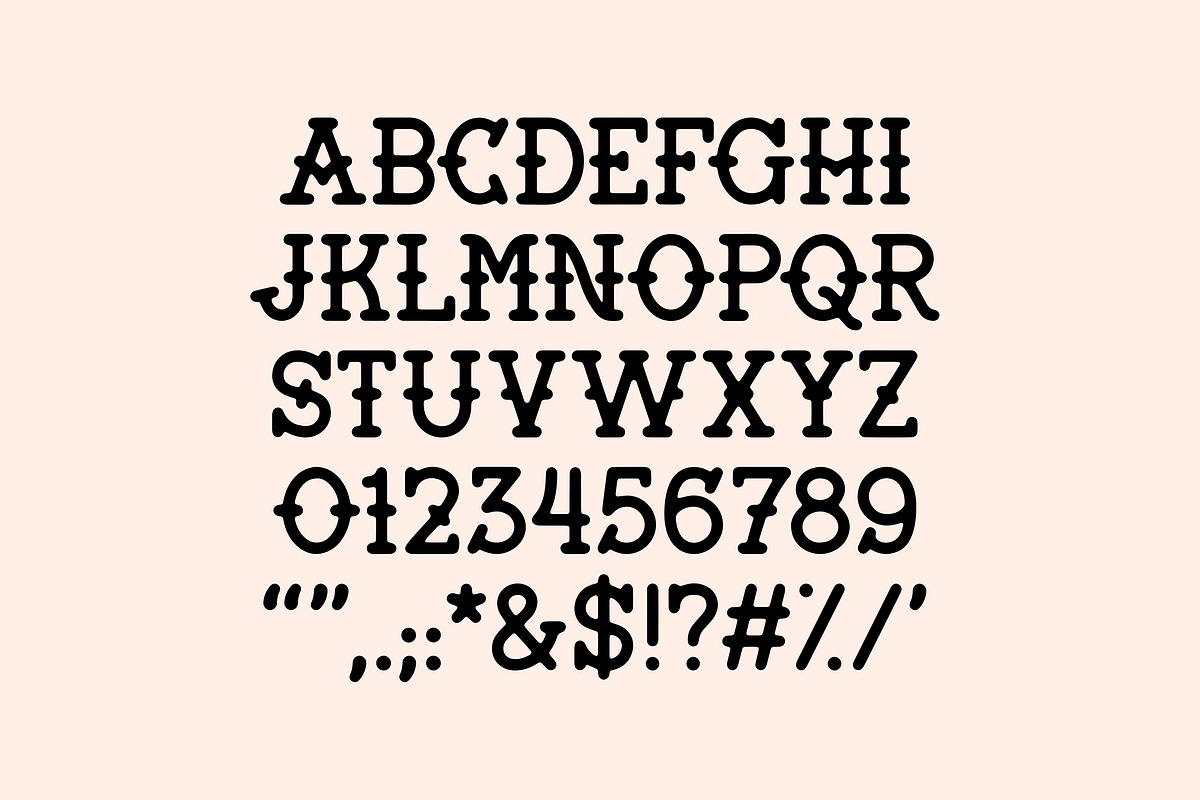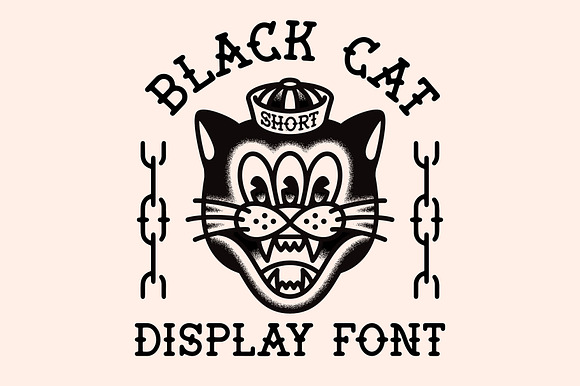
Black Cat Font
Add a Tough looking to your designs using “Black Cat”.
Including characters, numbers and punctuation.
Why Black Cat Font is worth a look
Black Cat Font by MightySHORT fits naturally into Branding, posters, packaging, typography.